13 Unique Bold Script Font Options for Your Next Design
Explore these 13 unique bold script font options meticulously curated for your next design project to instantly elevate your visual branding and make a lasting statement. Whether you are crafting high-impact product packaging, trendy streetwear logos, or eye-catching social media graphics, these handpicked typographic treasures are engineered to bring raw personality, fluid motion, and professional authority to any canvas. Let’s dive in and discover the perfect matches to make your typography stand out!
Gilborn Bold Font: A Stunning Touch for Your Bold Script Font Library
Introduce a breathtaking splash of luxury to your creative space with Gilborn Bold, a truly gorgeous selection designed to leave a lasting, premium impact on every canvas. Seamlessly blending a delicate, natural flow with confident, striking lines, this modern masterpiece serves as a highly versatile addition to your curated Bold Script Font collection. It brings an instant high-end spark to everything from chic corporate branding and romantic wedding stationery to modern product labels.
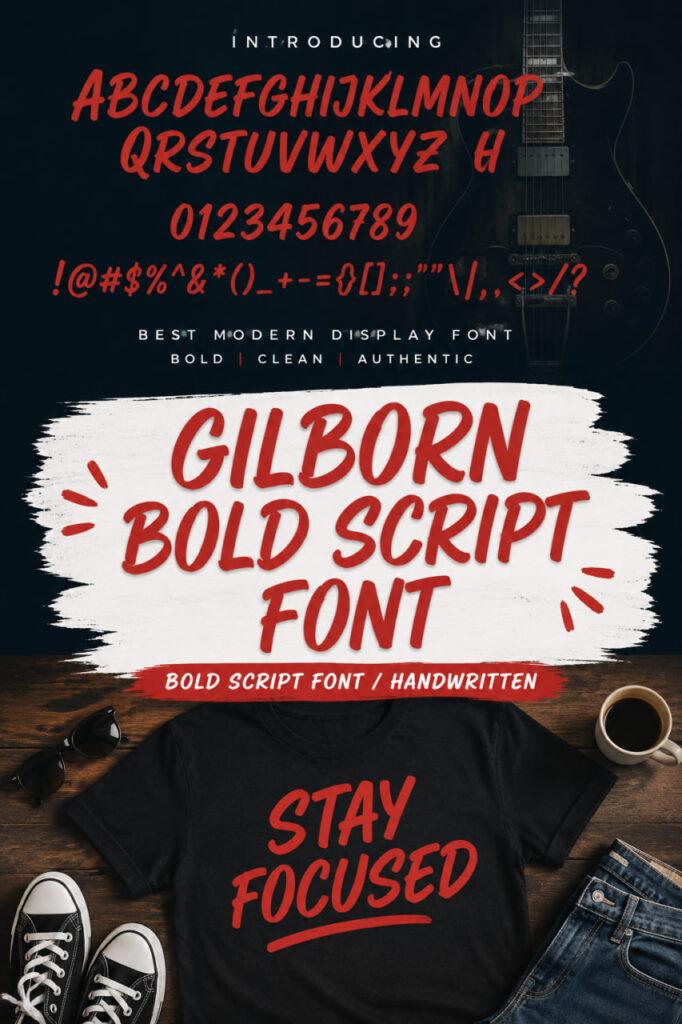
Alternatif Bold Font: A Sweet Touch for Your Handwritten Collection
Sprinkle a delightful dose of sweetness and romantic charm onto your canvas with Alternatif Bold, an exceptionally gentle cursive typeface designed to instantly warm the hearts of your audience. Beautifully balancing a soft, playful bounce with an elegant, cursive flow, this charming selection serves as an indispensable addition to your personal Bold Script Font collection. It brings an instant spark of pure joy and tender romance to everything from handmade greeting cards and cozy home decor to custom wedding stationery and heart-warming brand identities.
Beyond its lovely visual appeal, this expressive asset functions as a beautifully organic Handwritten treasure for everyday crafting. It flows with an effortless, hand-drawn authenticity that makes your text look incredibly personalized and inviting on any medium, from physical Cricut vinyl decals to digital planner templates. Bring Alternatif Bold into your creative toolkit today and watch your custom compositions bloom with a cheerful, affectionate spirit that keeps everyone smiling!
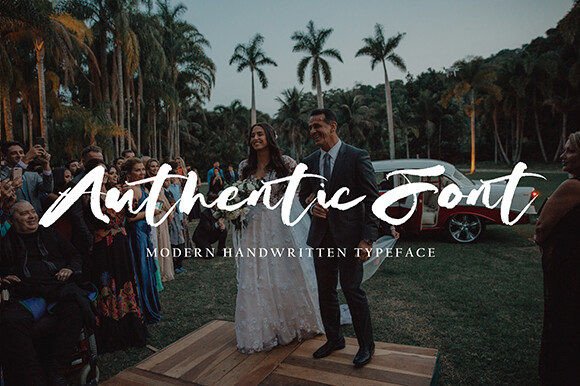
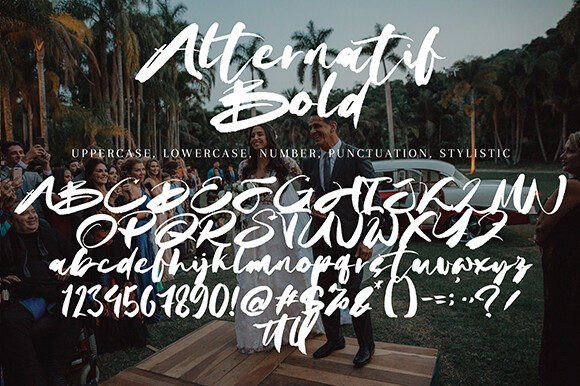
Rinto Bold Font: An Elegant Accent for Your Bold Script Font Collection
Elevate your creative projects with a touch of pure, effortless sophistication by choosing Rinto Bold, an incredibly stylish and elegant script typeface designed to bring a premium, high-end identity to your canvas. Seamlessly blending a refined, rhythmic flow with confidently structured curves, this gorgeous selection serves as a spectacular addition to your personal Bold Script Font collection. It brings an instant layer of timeless grace to romantic wedding invitations, heartfelt thank-you cards, meaningful quotes, and cozy greeting cards alike.
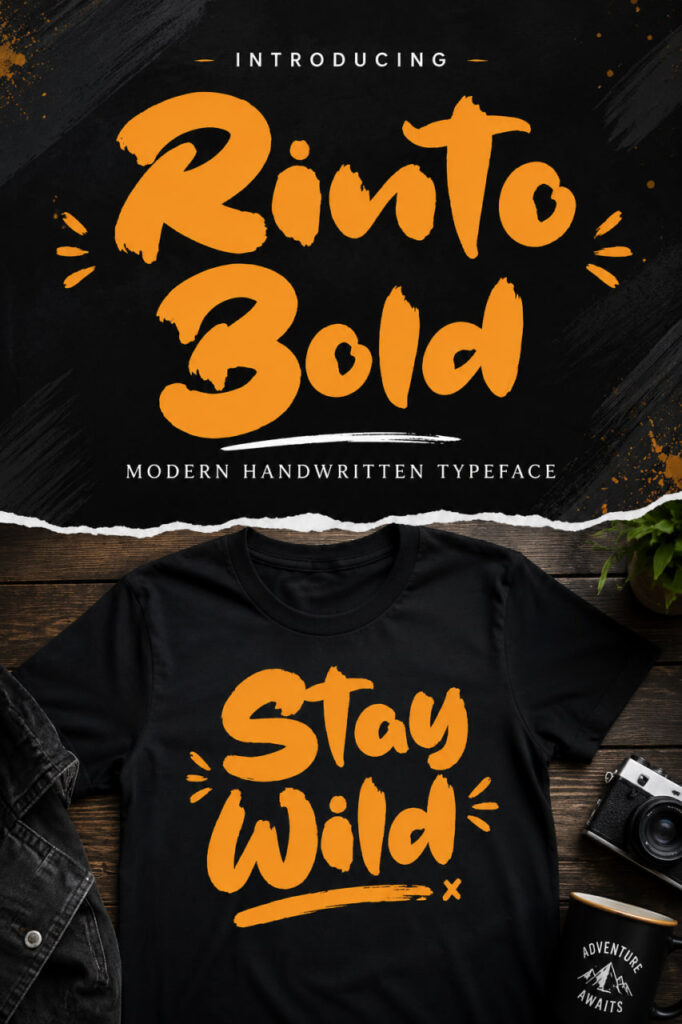
Beyond its polished visual appeal, this versatile asset functions as a beautifully organic Handwritten treasure for modern branding. It flows with an authentic, handcrafted warmth that makes it a dream for designing chic corporate logos, professional business cards, and personalized social media templates. Integrate Rinto Bold into your design toolkit today and watch your custom compositions command attention with a classy, custom-tailored rhythm that stays with your audience long after the first glance!
Rolling Bold Font: A Seamless Dynamic Flow for Your Bold Script Font Collection
Roll out the red carpet for your next creative breakthrough with Rolling Bold, an ultra-modern script typeface engineered to instantly maximize the visual appeal of your layouts. Designed with fluid momentum and perfectly weighted curves, this outstanding selection effortlessly earns its place in your go-to Bold Script Font library. It strips away the complexity of traditional typography, offering an incredibly user-friendly experience that saves you precious time during fast-paced design sessions.
Equipped with a rich suite of OpenType features, this typeface includes seamless ligatures and beautiful alternate characters to give your text a truly bespoke, Handwritten soul.
Old Story Bold Font: A Nostalgic Masterpiece for Your Bold Script Font Library
Journey back in time to an era of classic craftsmanship with Old Story, a strong, handmade script typeface designed to bring a nostalgic soul to your creative canvas. Echoing the gorgeous handwriting of the last century, this robust selection is the perfect addition to your curated Bold Script Font collection. It seamlessly merges historic charm with raw structural power, ensuring your headlines stand out with undeniable confidence.